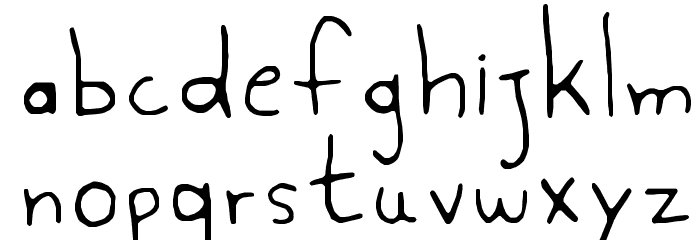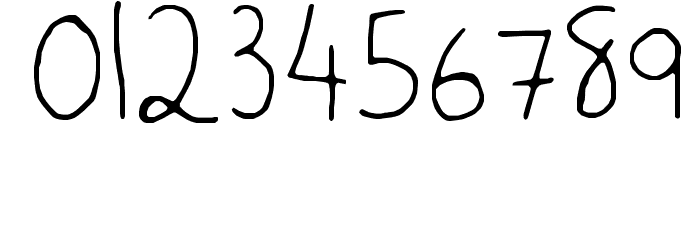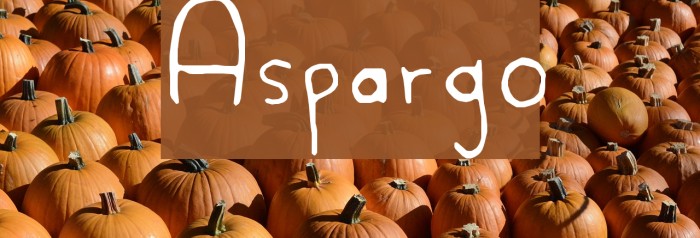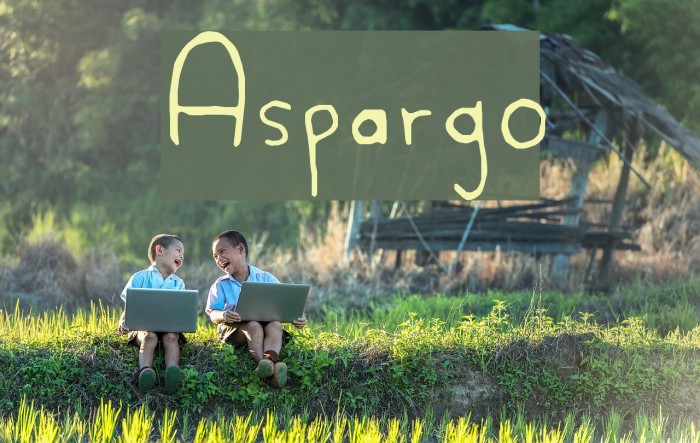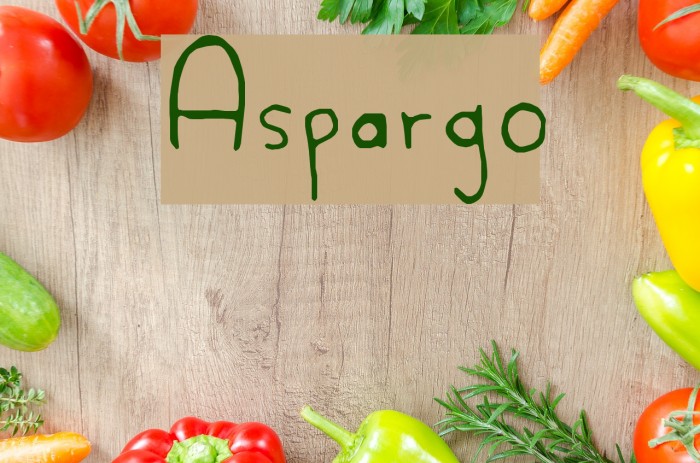
Aspargo Font
This font features a playful, handwritten style with irregular strokes and a casual appearance. The characters are slightly uneven, giving it a whimsical and informal feel. The uppercase letters are tall and narrow, while the lowercase letters maintain a consistent height with rounded forms. Numbers are distinct and maintain the same playful style, making them easily readable. The special characters are creatively designed, fitting seamlessly with the overall aesthetic. This font exudes a sense of creativity and spontaneity, perfect for projects that require a personal touch.
A playful, handwritten font with a whimsical and informal style.
- Proposed Projects: Ideal for children's books, greeting cards, personal blogs, and creative branding projects.
- Overall Style: Casual
- Use Case: Headlines, Informal text, Creative projects